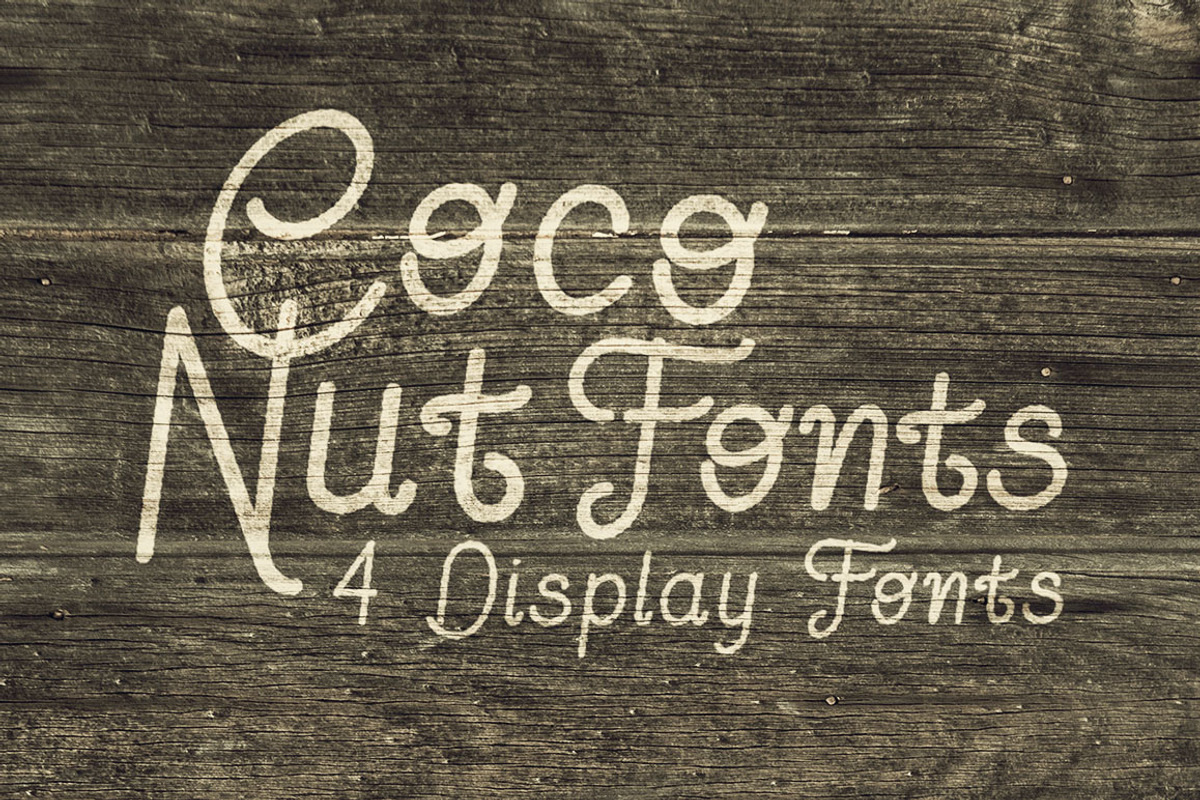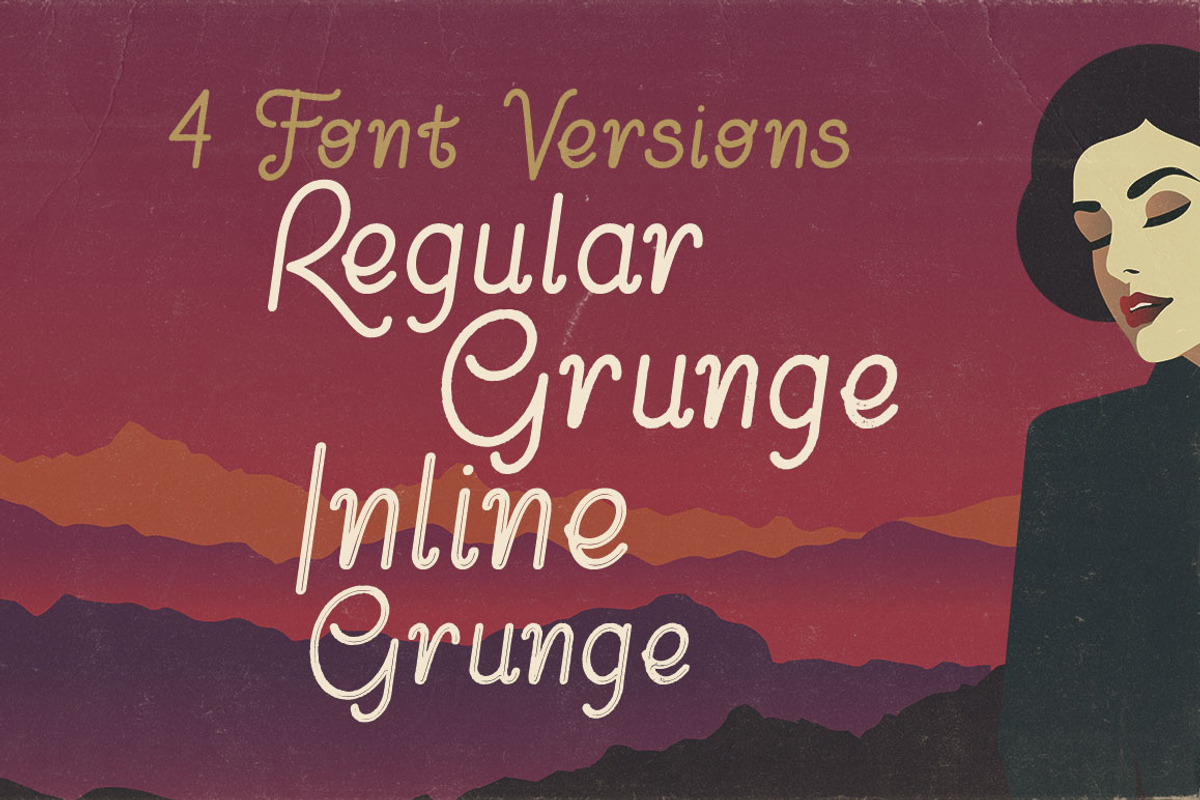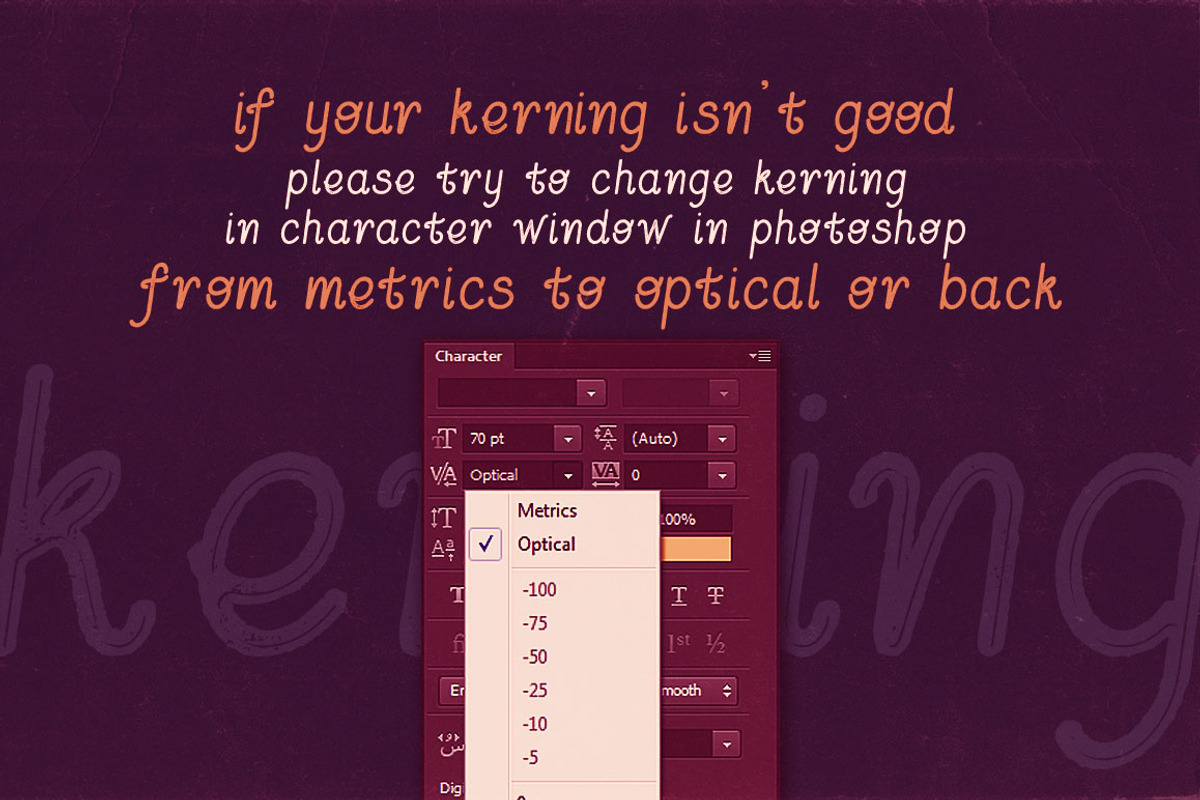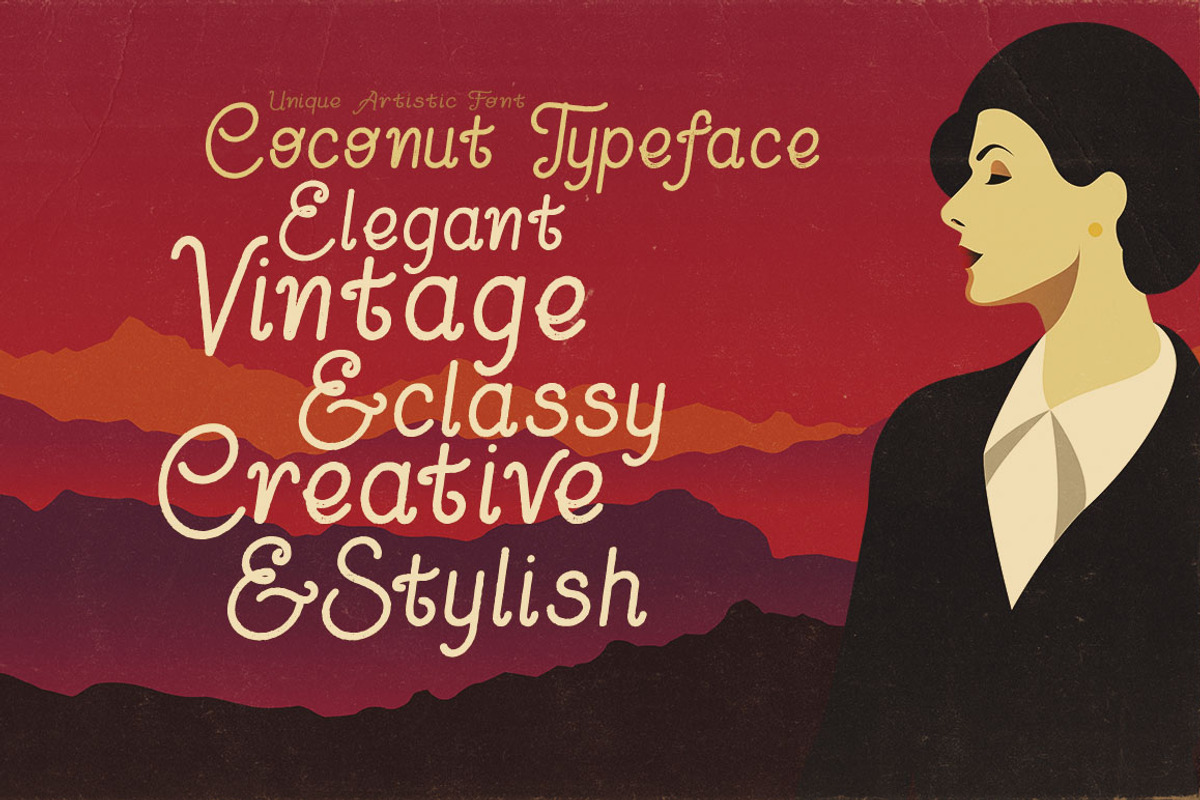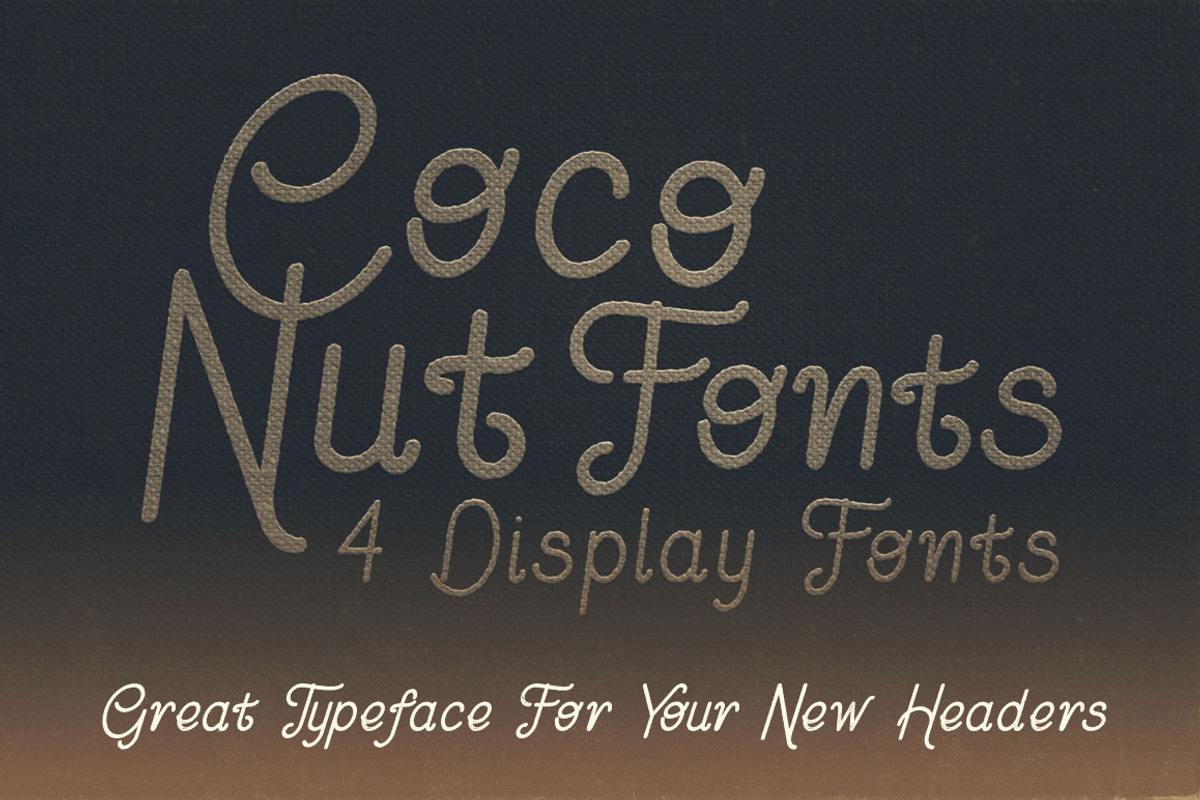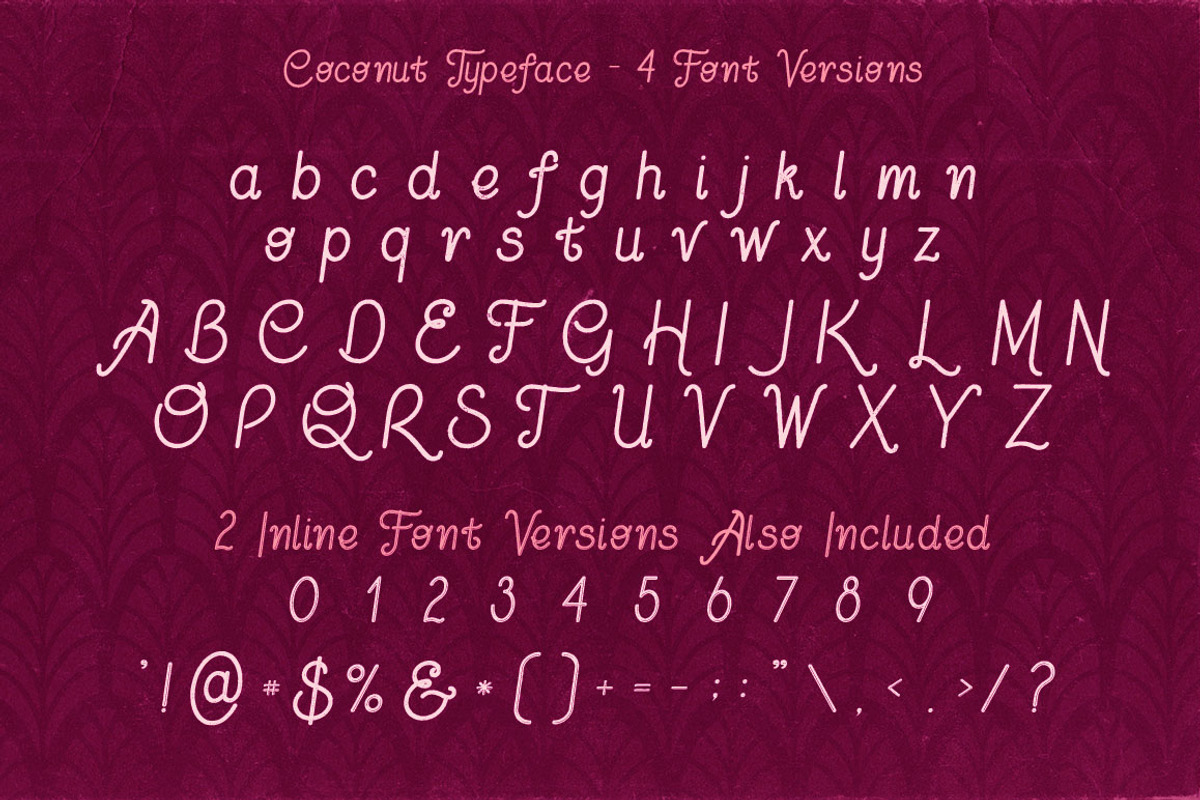
Coconut - Display Font
Unique retro-vintage & grunge style custom display font with 4 styles: regular and grunge, inline and grunge.
Coconut - Display Font by JumboDesign fits naturally into Branding, posters, packaging, typography.